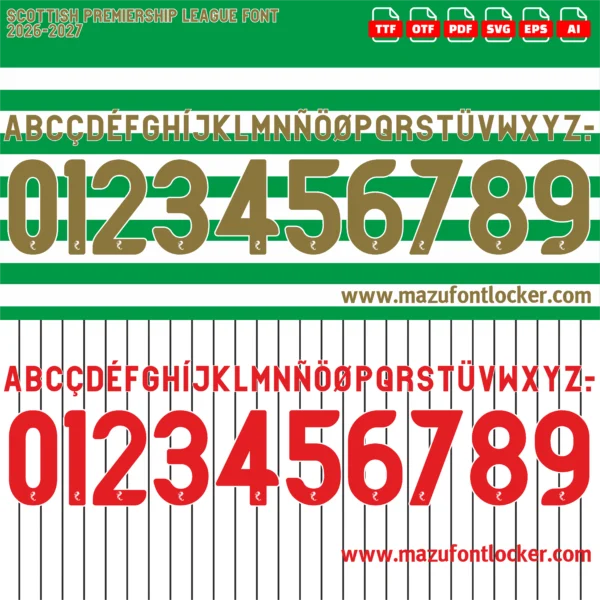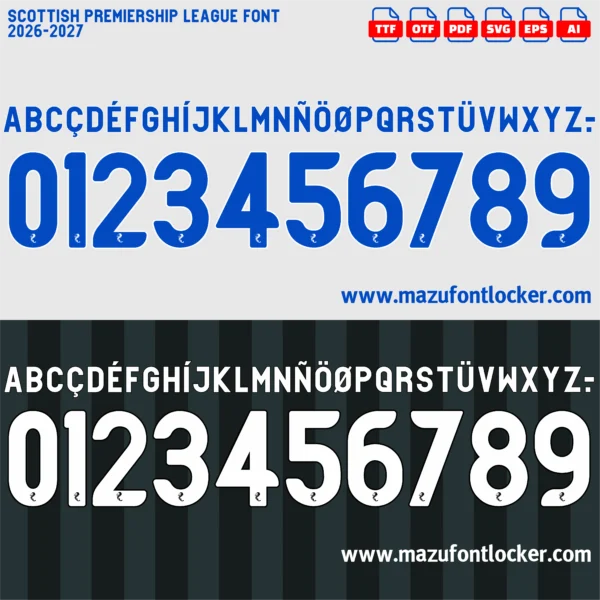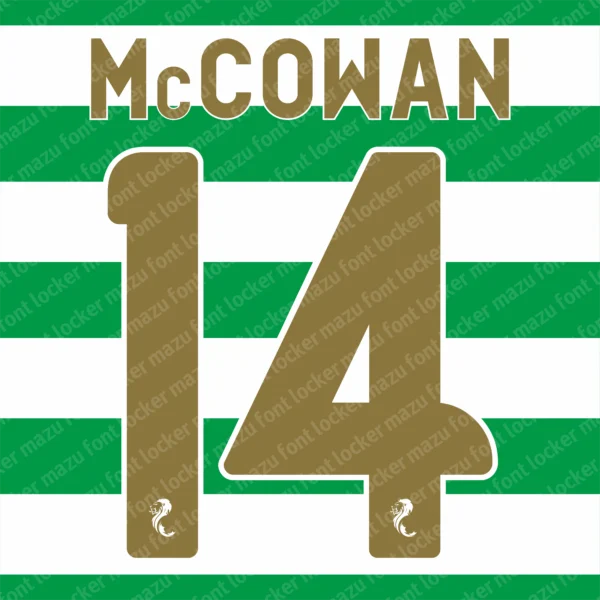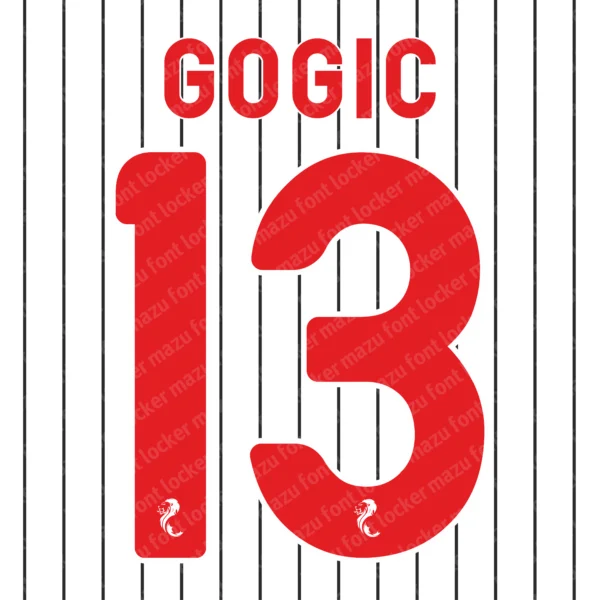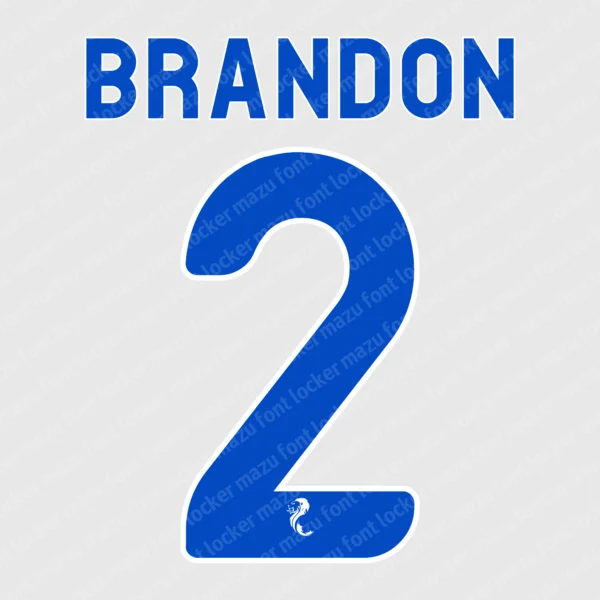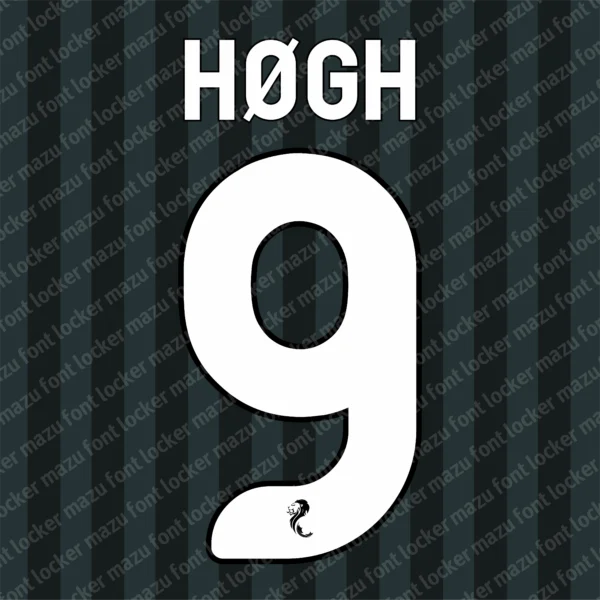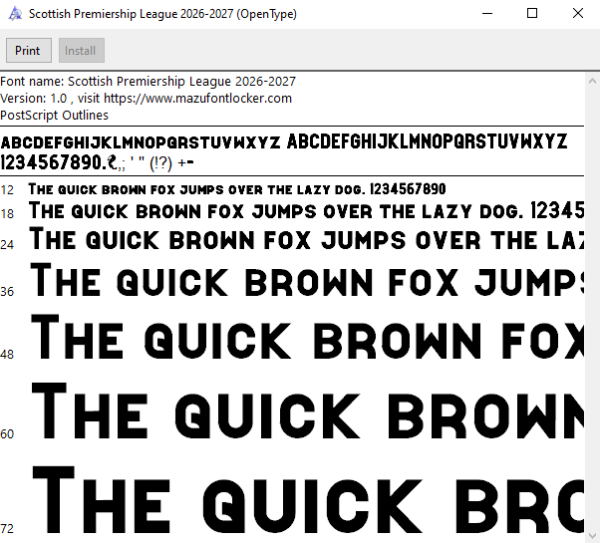
Scottish Premiership 2026-2027 Font Vector – Stunning Tartan Masterpiece
This font captures the unstoppable, precision-forged lettering inspired by the Scottish Premiership’s iconic national identity, proud Scottish heritage, legendary Premiership tradition, and fearless warrior-like football spirit — delivering premium authenticity and explosive match-day energy for professional jersey mockups, football graphics, sports branding, fan designs, and high-end creative projects.
Scottish Premiership 2026-2027 Font Vector – Stunning Official Style Typeface
The Scottish Premiership 2026-2027 Font Vector is a premium typeface that accurately recreates the distinctive match lettering associated with the Scottish Premiership during the 2026-2027 football season. This high-quality vector font kit captures the bold, clean, and instantly recognizable typography that perfectly complements the league’s modern and professional visual identity.
Designed for professional designers, football enthusiasts, jersey collectors, and passionate Scottish football supporters, the Scottish Premiership 2026-2027 Font Vector delivers exceptional authenticity for creating realistic jersey mockups, football merchandise, social media graphics, match posters, squad designs, and custom fan artwork. Every character has been carefully recreated to reflect the powerful and precise visual style of Scotland’s top-flight league.
Why Choose Scottish Premiership 2026-2027 Font Vector
This font stands out thanks to its precise vector construction and authentic league-inspired styling. Every letter and numeral has been meticulously recreated to match the distinctive football lettering aesthetic associated with the Scottish Premiership during the 2026-2027 season and its domestic campaigns.
Whether you’re producing professional football kit templates, custom jersey concepts, or eye-catching football content, the Scottish Premiership 2026-2027 Font Vector delivers a genuine match-ready appearance inspired by the identity of Scotland’s premier football competition.
The lettering featured in the Scottish Premiership 2026-2027 Font Vector combines clean geometric lines with bold modern proportions. The result is a premium and highly readable typeface that reflects the Scottish Premiership’s proud football heritage, competitive spirit, and passionate support across Scotland.
- Complete uppercase A–Z alphabet and numbers 0–9 in authentic Scottish Premiership 2026-2027 inspired style
- Special Scottish Premiership badge glyph – Press the “:” (Colon) key to insert the league badge
The Scottish Premiership 2026-2027 Font Vector is inspired by the distinctive football typography and visual identity associated with this campaign, making it an excellent choice for designers creating custom jersey concepts, football posters, squad graphics, matchday artwork, and fan-made projects. For official league information, news, fixtures, and match updates, visit the official SPFL website.
The Scottish Premiership 2026-2027 Font Vector is an independently designed typeface package inspired by the official shirt lettering and visual identity associated with the Scottish Premiership during the 2026-2027 football season. It has been carefully recreated for football enthusiasts, graphic designers, collectors, jersey creators, and fans producing custom football concepts, digital artwork, and fan-made projects. Please note that this is a fan-made design resource and is not an official product of the SPFL, the Scottish Premiership, UEFA, or any associated organization.